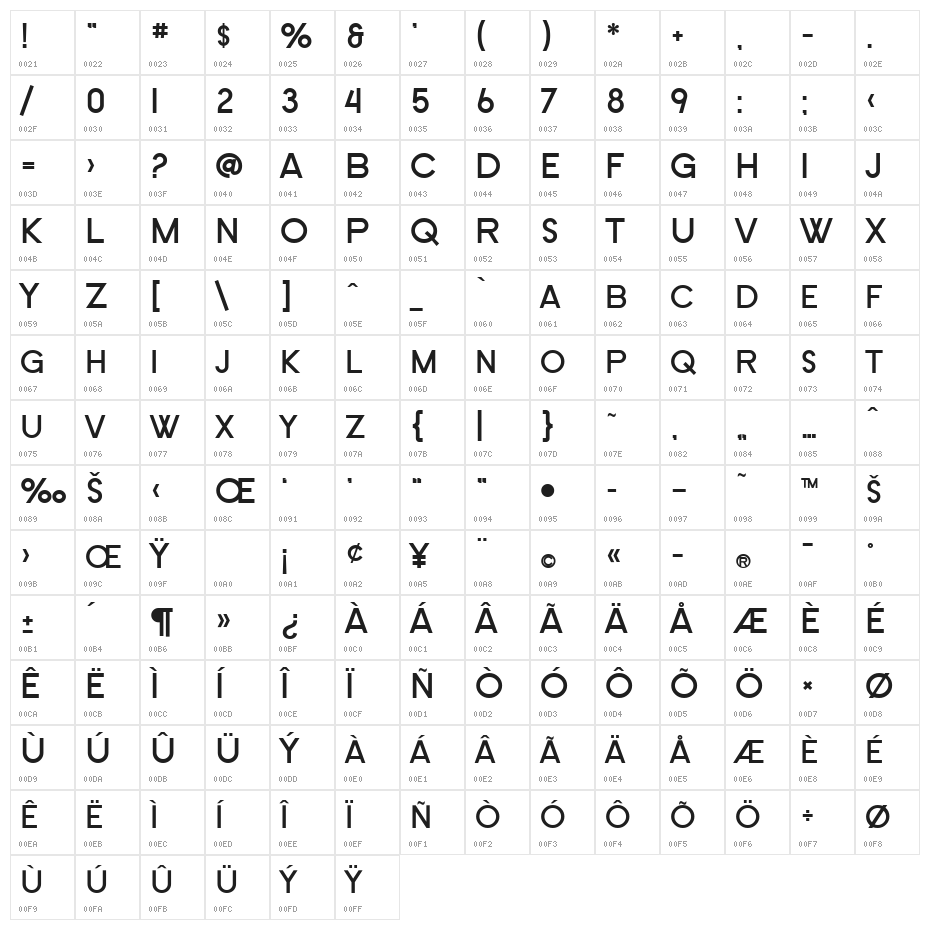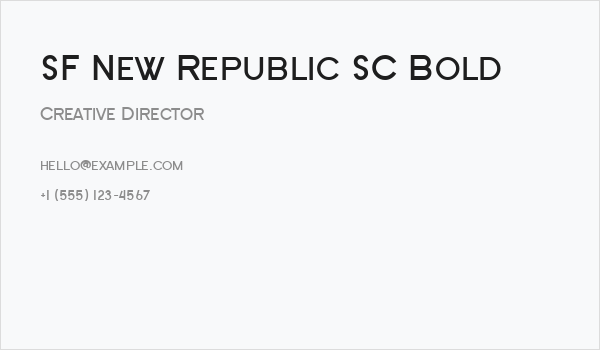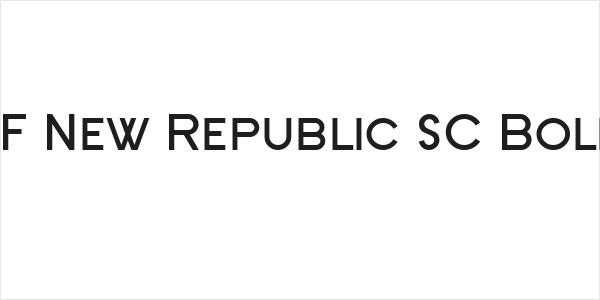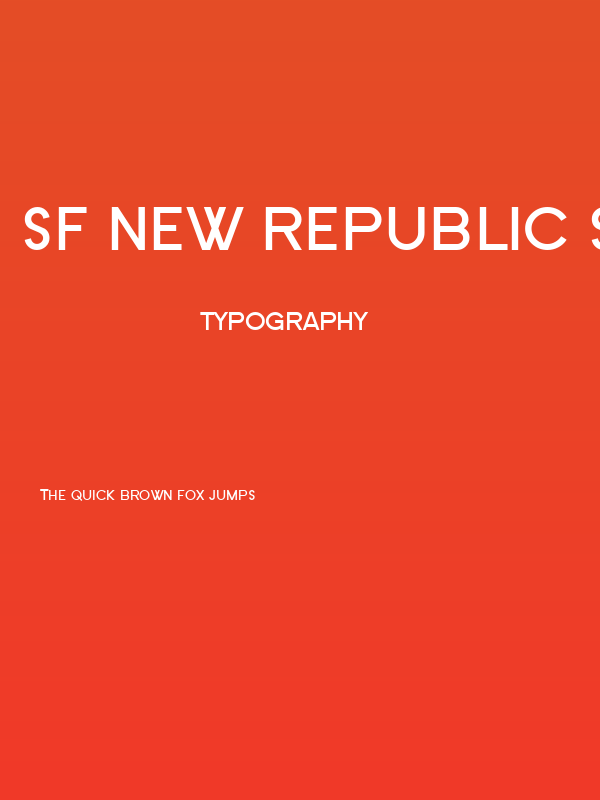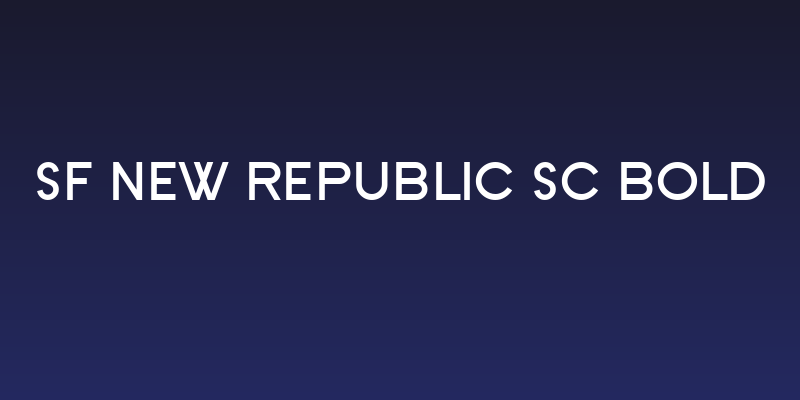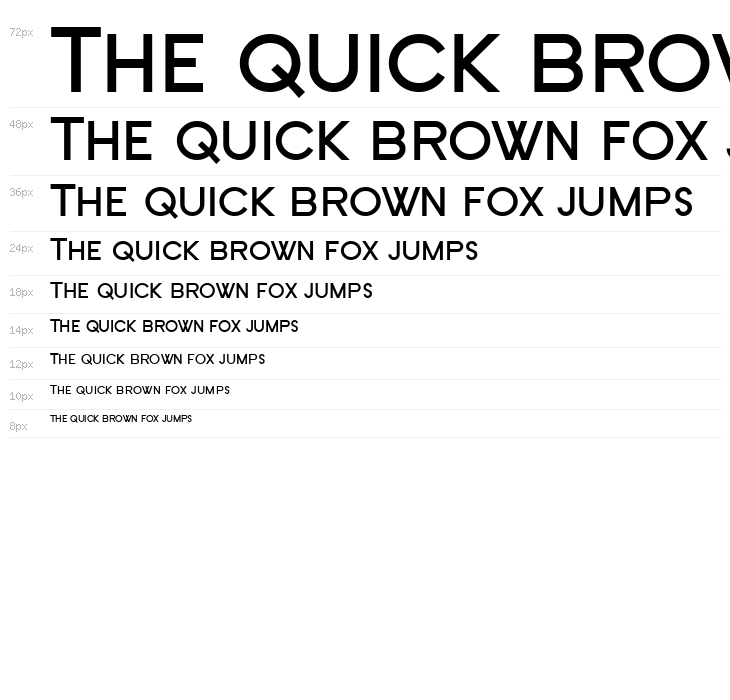
SF New Republic SC Bold Font
SF New Republic SC Bold Description
This font features a bold and modern sans-serif style, characterized by clean lines and a strong presence. The uppercase letters are uniform in height, providing a sense of balance and stability. The numerals are distinct and easily readable, making them suitable for various applications. The special characters are well-integrated, maintaining the overall aesthetic of the font. Its bold weight and clear structure make it ideal for attention-grabbing headlines and impactful designs.
| Use Case | Headlines, Logos, Advertising |
| Proposed Projects | Ideal for branding, advertising, headlines, and digital media where a bold statement is needed. |